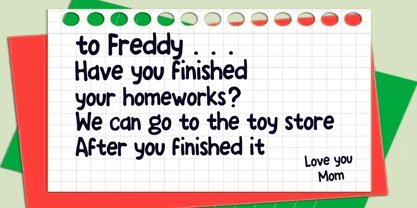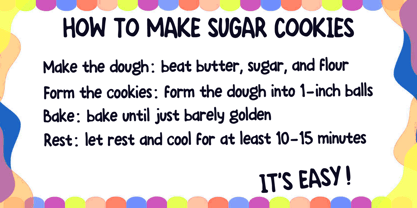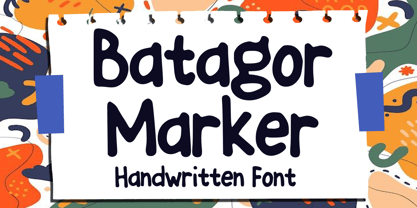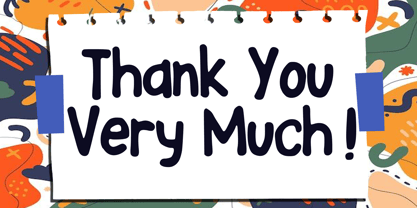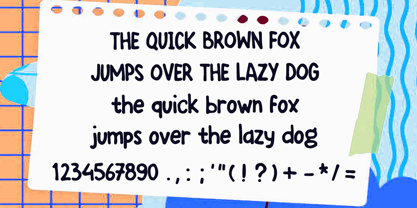
Batagor Marker
by Mvmet
The Batagor Marker Font Family was designed by Gabriel Valentinus and published by Mvmet. Batagor Marker contains 1 styles.
Immerse yourself in the playful charm of Batagor Marker, an everyday marker font steeped in fun and versatility. Enhance your design projects with its effortless appeal that scales to the highest levels of creativity. From eclectic magazine covers and captivating book jackets to vibrant stickers and distinctive t-shirt designs, this font is your magic wand. Make your logo designs stand out, or add a splash of character to comic strips and cartoon illustrations. Batagor Marker effortlessly imparts a unique and cool vibe to your every endeavor. Let your designs break boundaries with this vivacious font.
Designers: Gabriel Valentinus
Publisher: Mvmet
Foundry: Mvmet
Design Owner: Mvmet
Batagor Marker